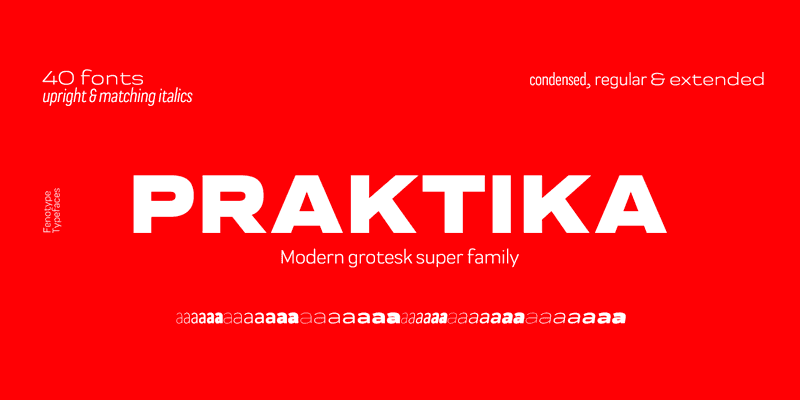
Praktika is a versatile super family of 40 fonts. It has three different widths and weights from extra light to extra bold. In other words, it is a modern version of the traditional ugly European styles that were used on the road signs.